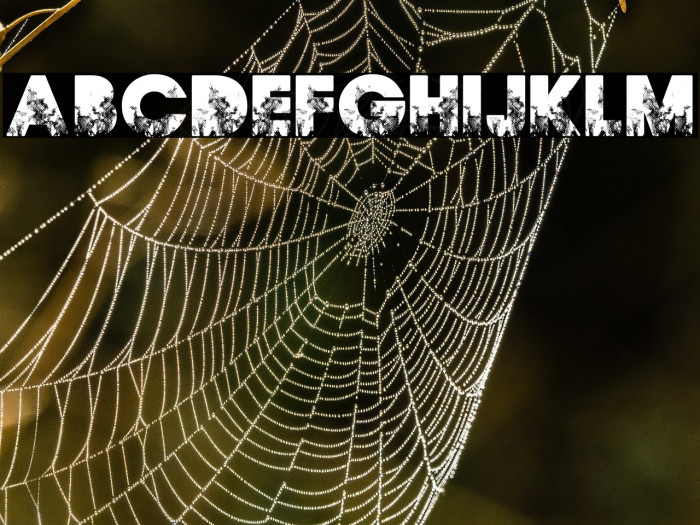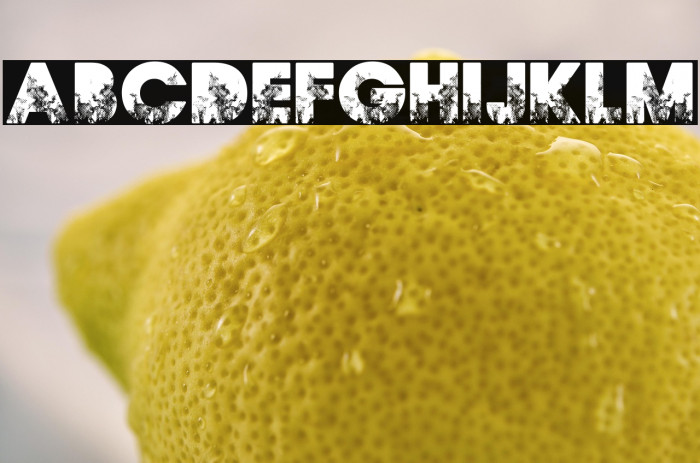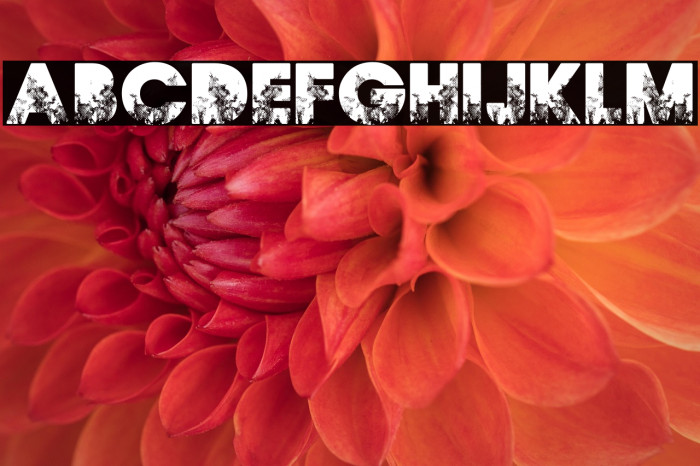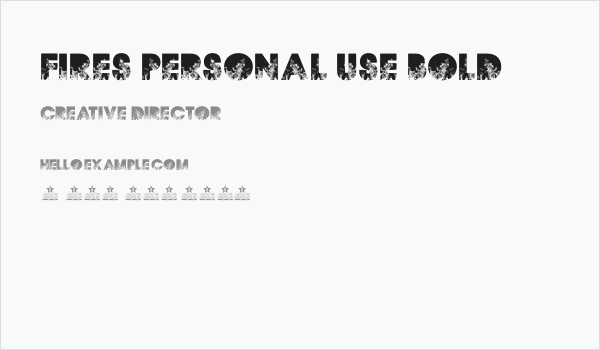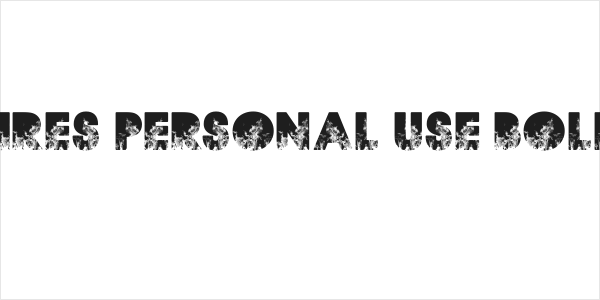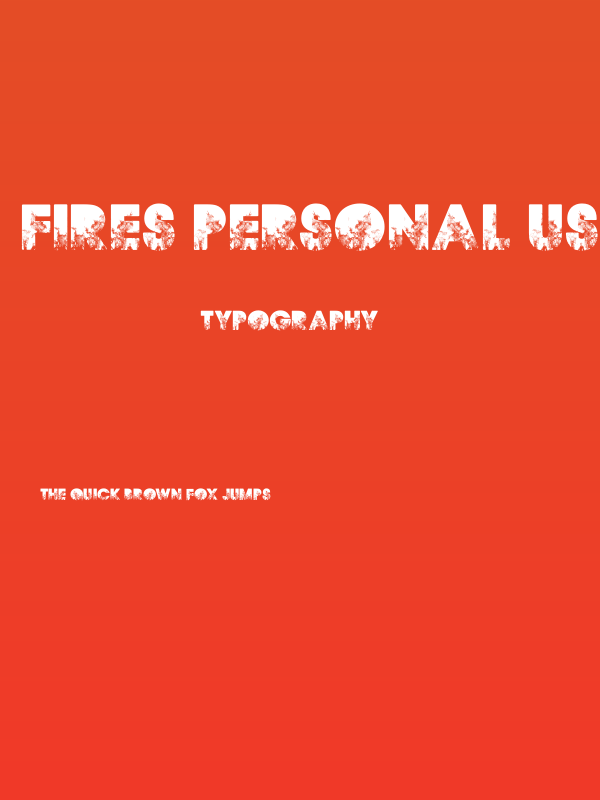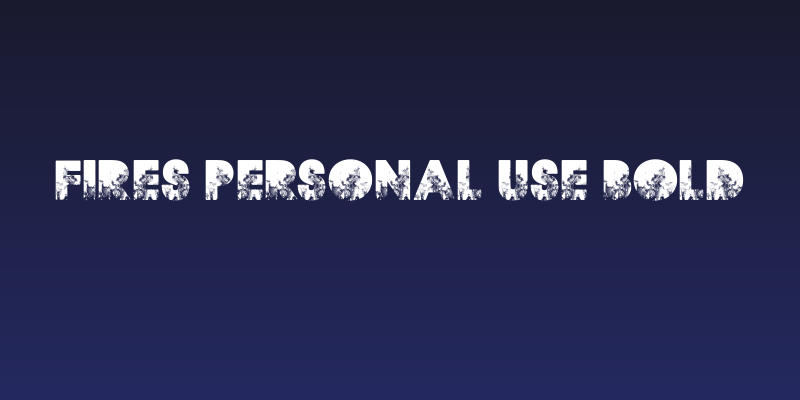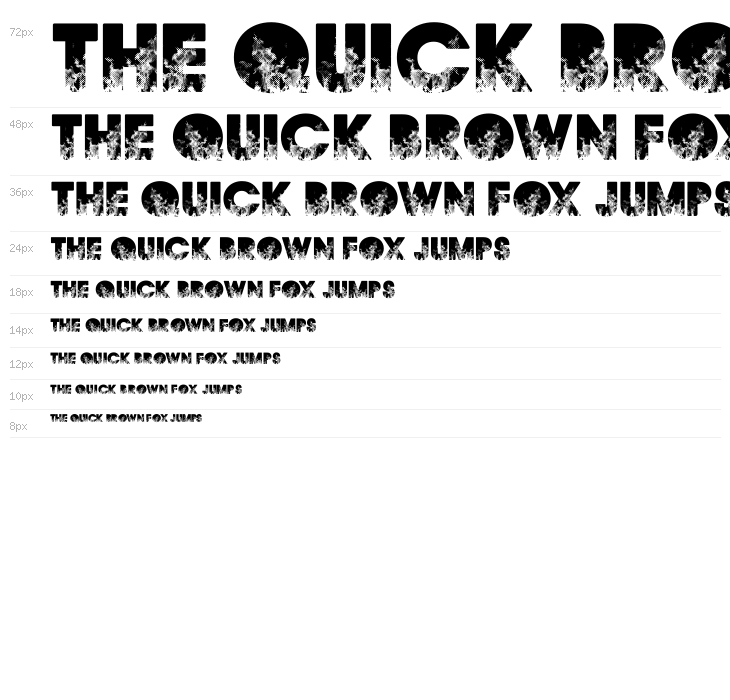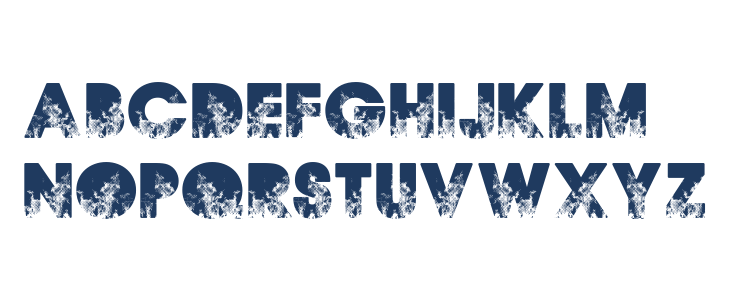
FIRES PERSONAL USE Bold Font
FIRES PERSONAL USE Bold Description
This font features a bold, distressed style with a unique texture that resembles flames or smoke. The uppercase letters are prominent and impactful, making it suitable for attention-grabbing designs. The texture within each character adds a dynamic and edgy feel, perfect for projects that require a strong visual statement. The font maintains a consistent weight throughout, with a slightly condensed width that enhances its bold appearance. The character spacing is normal, allowing for clear readability despite the intricate detailing within each letter.
| Proposed Projects | This font is perfect for projects such as posters, album covers, event flyers, and branding materials that require a bold and edgy aesthetic. |